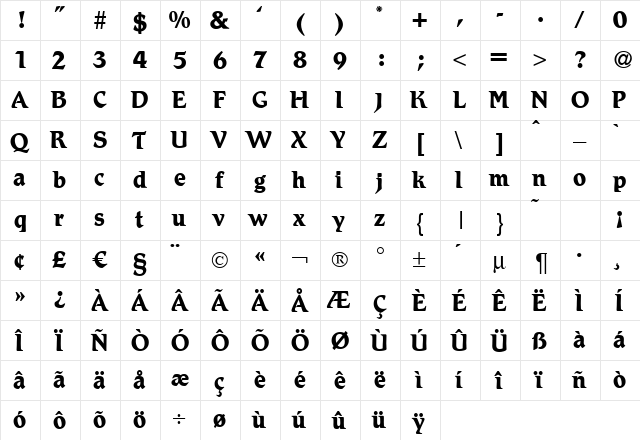
R790-Roman Bold
Design Context for R790-Roman Typeface
R790-Roman takes a measured approach to typography — its balanced proportions and neutral character make it a reliable workhorse for both digital and print work. The heavy weight commands attention and anchors typographic hierarchies.